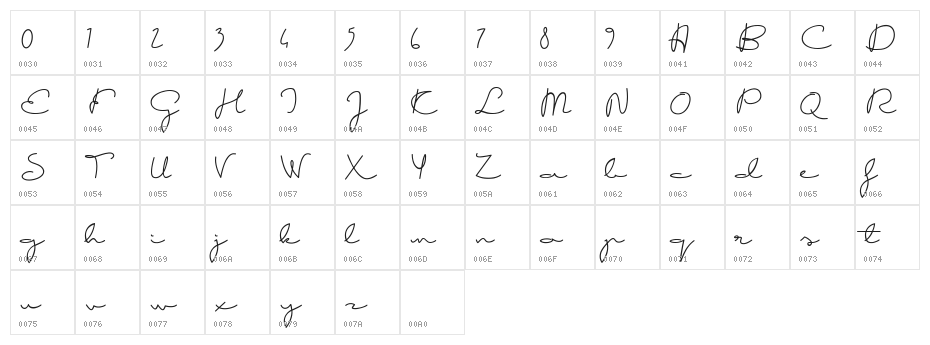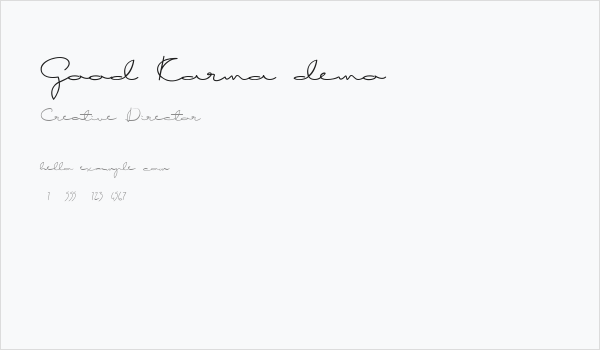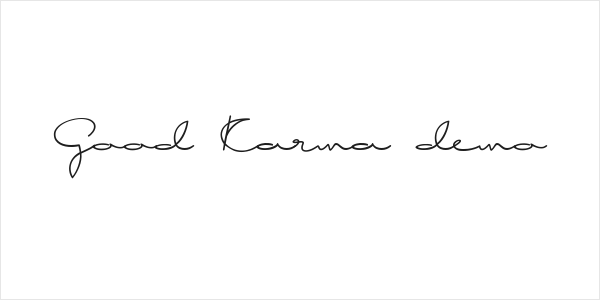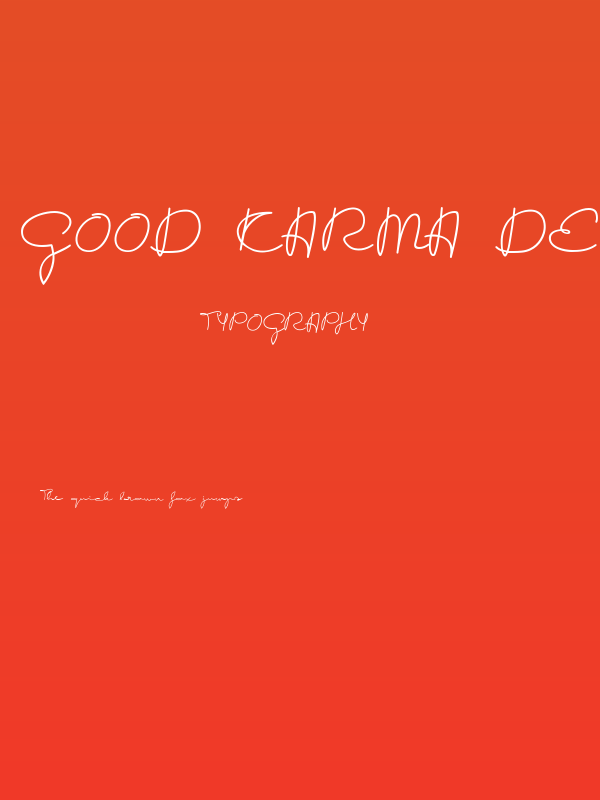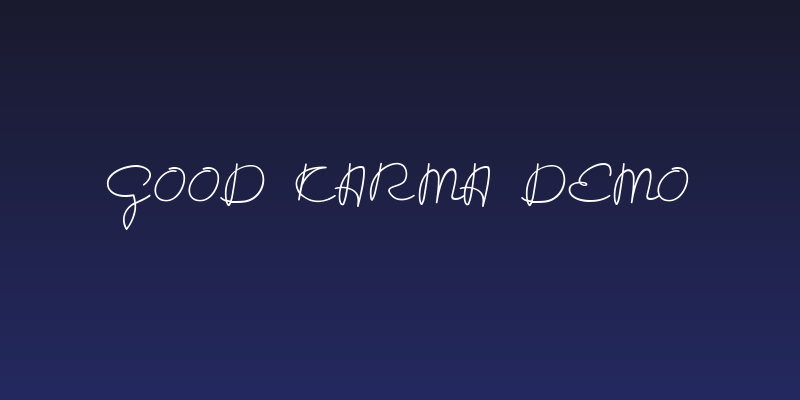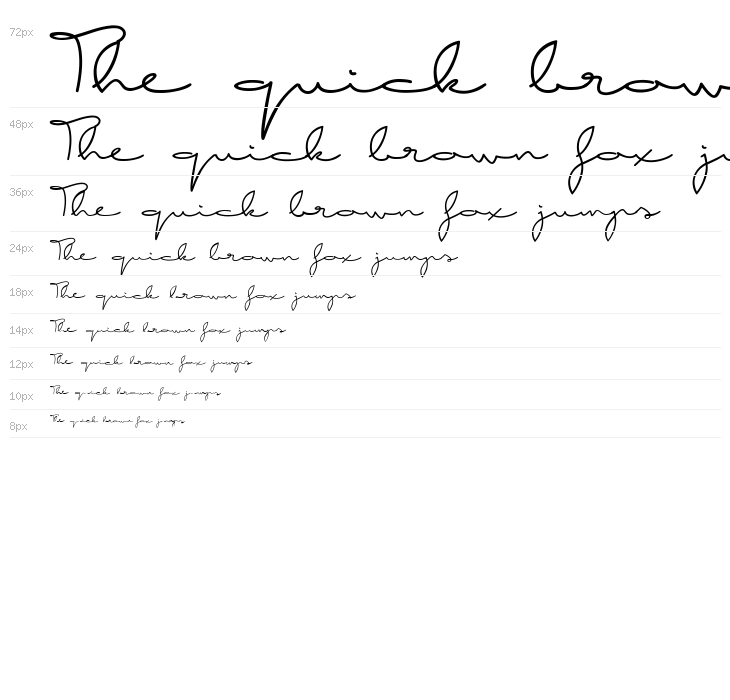
Good Karma demo Font
Good Karma demo Description
This font features a flowing, cursive style that mimics elegant handwriting. The uppercase letters are tall and slightly narrow, with graceful loops and curves that give a sense of fluidity and motion. The lowercase letters maintain a consistent flow, connecting smoothly to each other, which enhances the handwritten aesthetic. The numerals are clear and distinct, maintaining the same fluid style as the letters. This font is ideal for projects that require a personal, artistic touch, such as invitations, greeting cards, or branding materials that aim to convey elegance and sophistication.
| Overall Style | Elegant, Handwritten |
| Proposed Projects | Ideal for wedding invitations, personal branding, greeting cards, and artistic projects. |